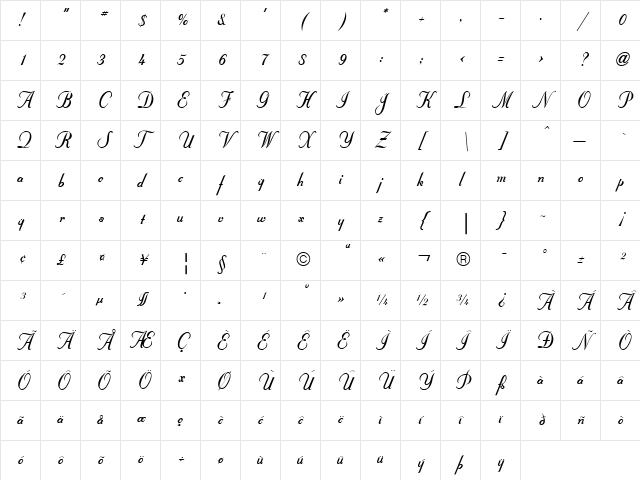
StuyvesantICG Regular
StuyvesantICG Family
StuyvesantICG Regular
StuyvesantICG is a composed and adaptable typeface that performs quietly and consistently across a wide range of design contexts.
Pro Tip: Use StuyvesantICG in both headline and body roles to test its range before committing to a single application.